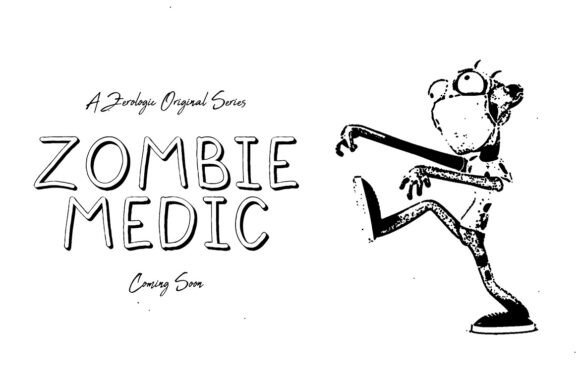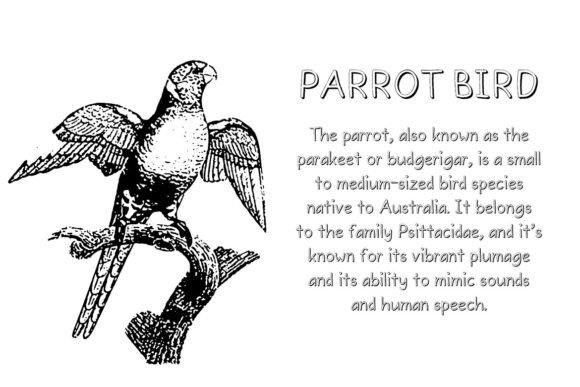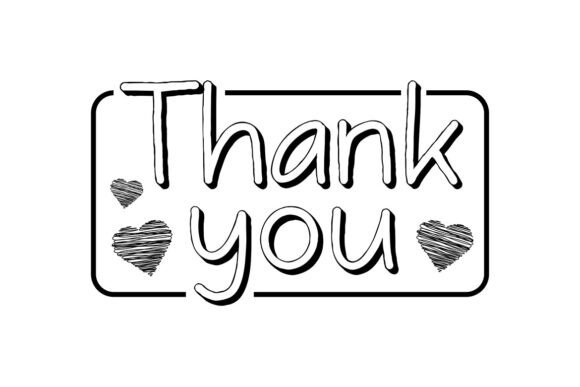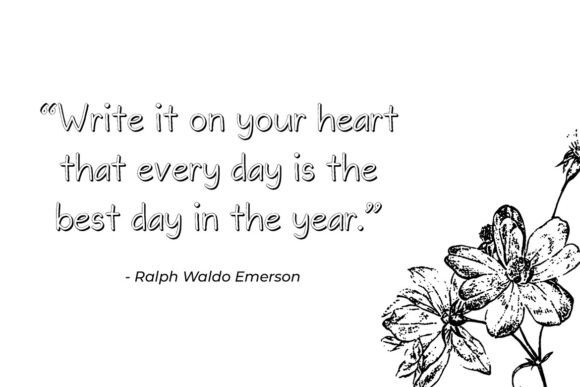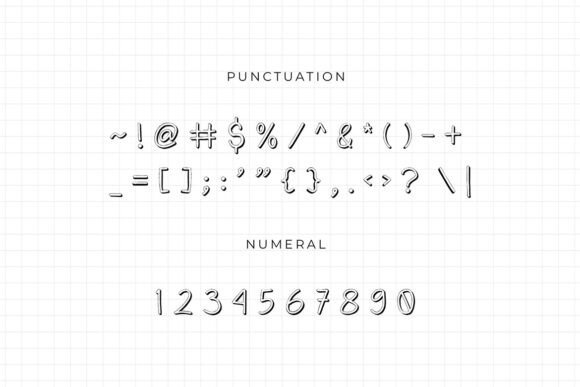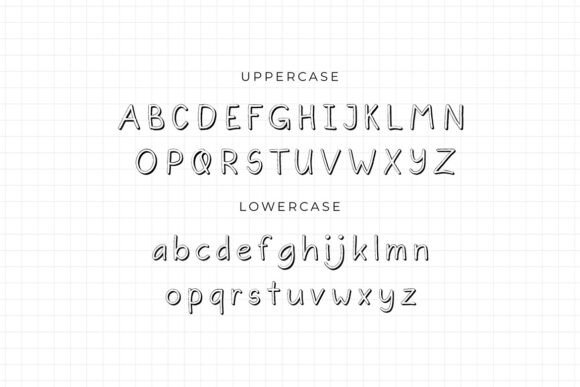
The Designer’s Delight: Bubble Snake Font
First Impressions: A Stylish, Modern Typeface
Bubble Snake Font is a stylish, modern typeface that brings a unique twist to the world of typography. This font includes uppercase, lowercase, numbers, and symbols, making it a versatile choice for various design projects. Its bold and sharp look makes it perfect for titles, posters, typography, magazines, brochures, packaging, websites, and more, adding a cool touch to your designs.
- ✨ Unique and Eye-catching Design: The Bubble Snake Font boasts a distinctive design that sets it apart from other fonts.
- ✅ Versatility: With its comprehensive character set, this font can be used for a wide range of design projects.
- 💻 Easy to Read: Despite its bold and sharp look, the font remains easy to read, even at smaller sizes.
While the Bubble Snake Font is an excellent choice for many design projects, there are a few minor quirks to consider:
- 🤔 Limited Use in Body Text: Due to its bold and sharp look, this font might not be the best choice for lengthy body text.
- ⚠️ Glyph Compatibility: Some glyphs might not work seamlessly with certain design software or platforms.
The Designer Inspiration
The Bubble Snake Font was created by a talented designer who drew inspiration from the world of graffiti and street art. With a passion for bold, eye-catching typography, the designer aimed to create a font that would add a cool touch to any design project. The result is a unique and versatile font that’s perfect for designers, crafters, and creative hobbyists.
| Font Name | Bubble Snake Font |
| Author | zerologicstudio |
Q: What type of projects is the Bubble Snake Font best suited for?
A: The Bubble Snake Font is perfect for titles, posters, typography, magazines, brochures, packaging, websites, and more.
Q: Is the Bubble Snake Font compatible with all design software?
A: The Bubble Snake Font is compatible with most design software, but some glyphs might not work seamlessly with certain platforms.